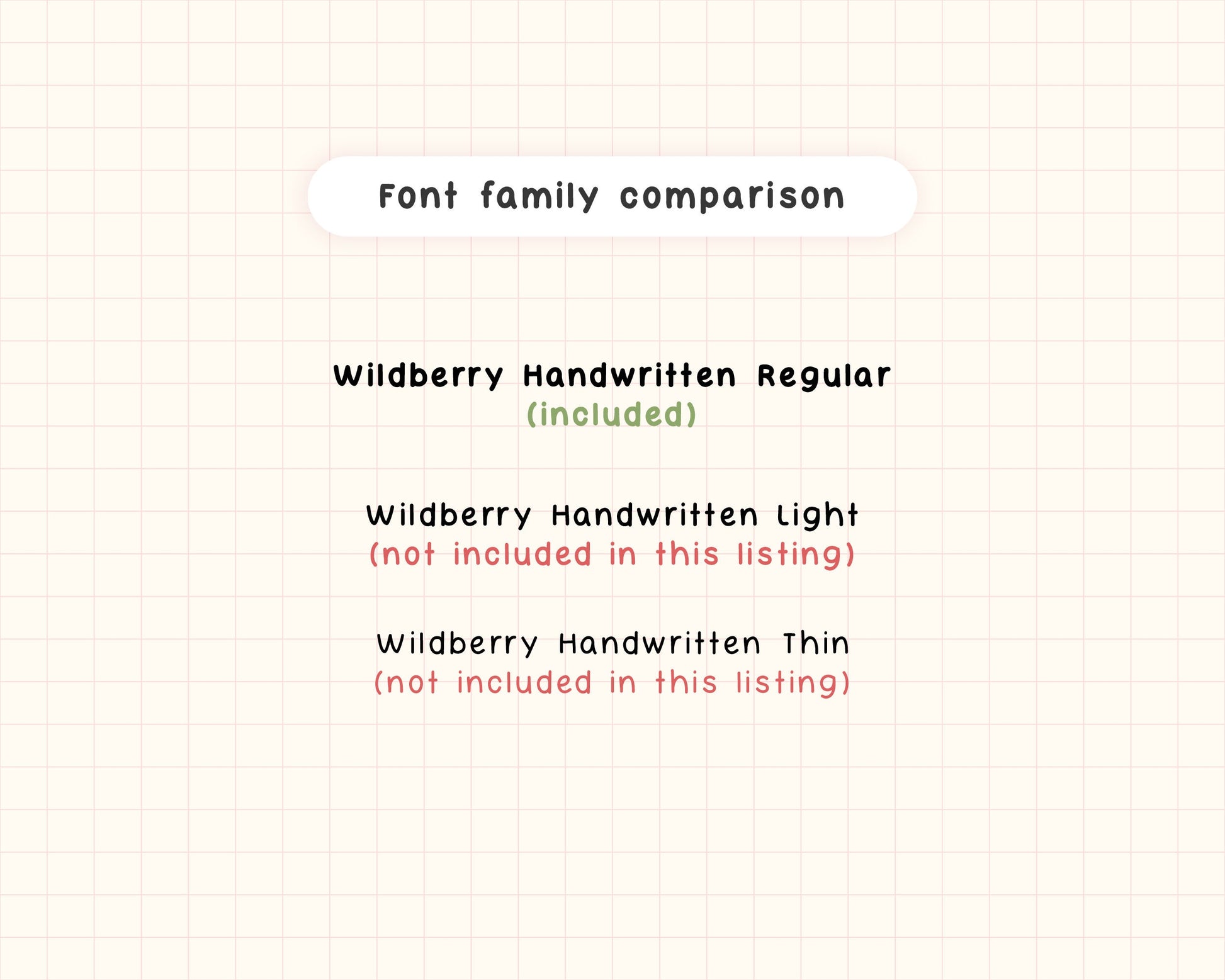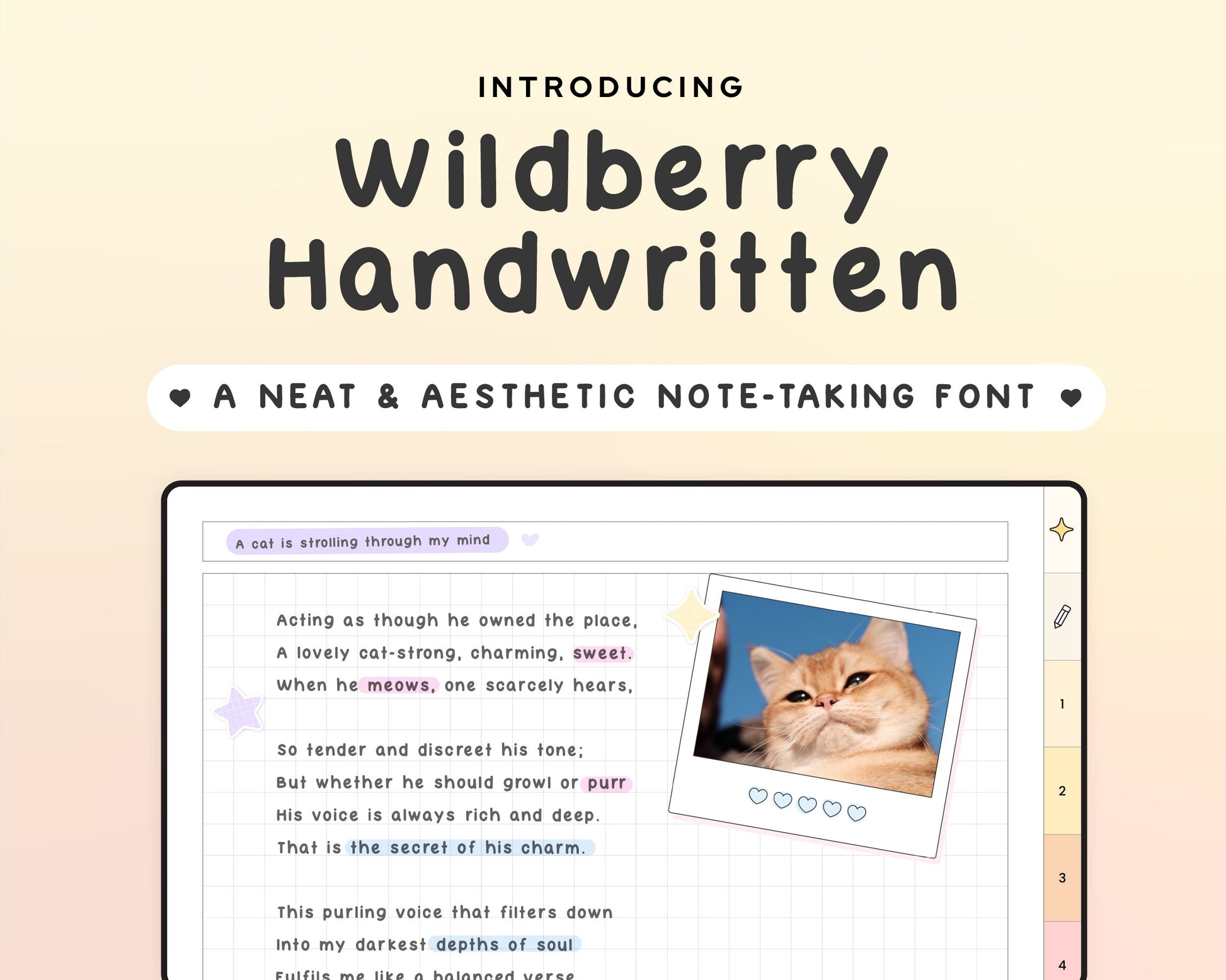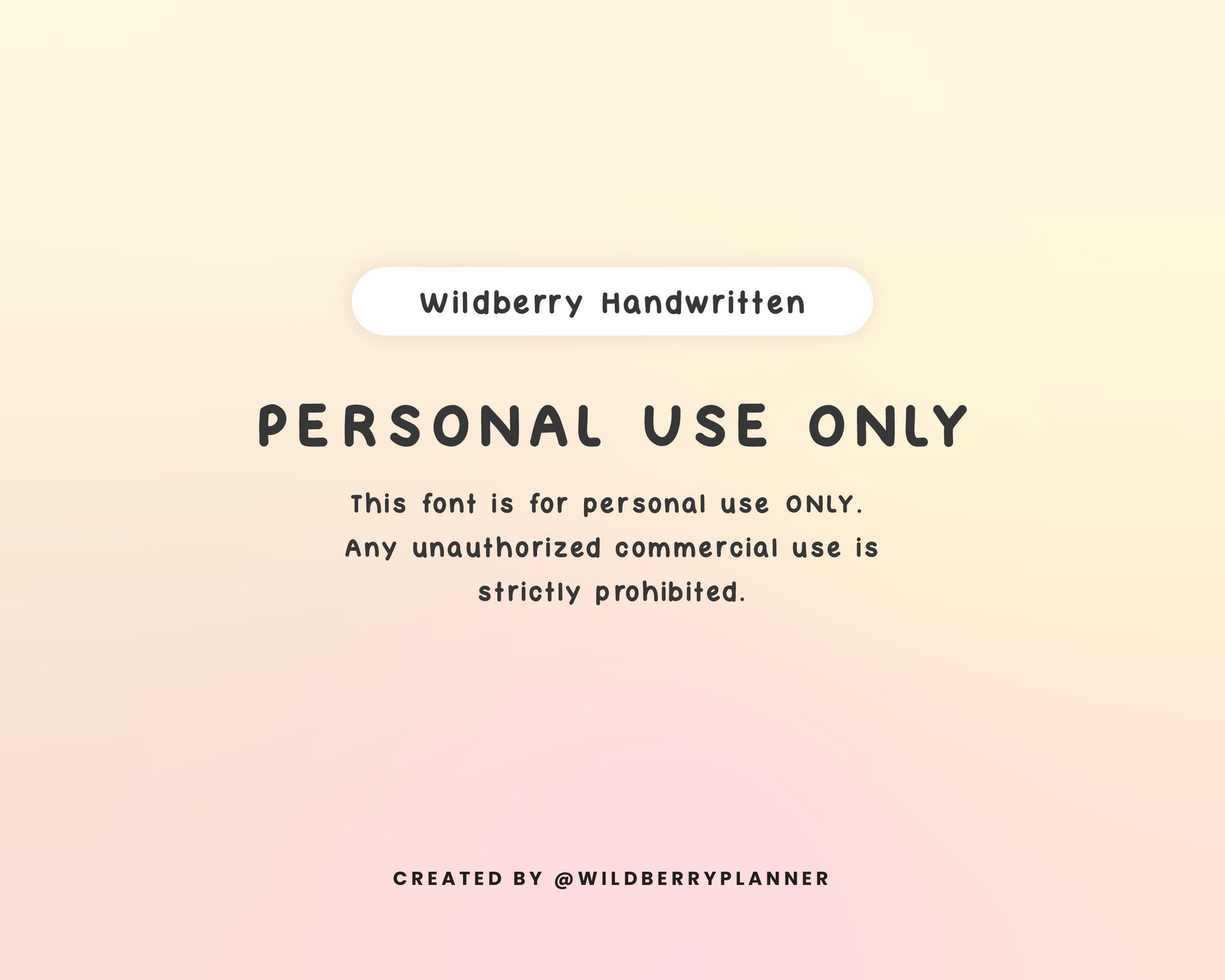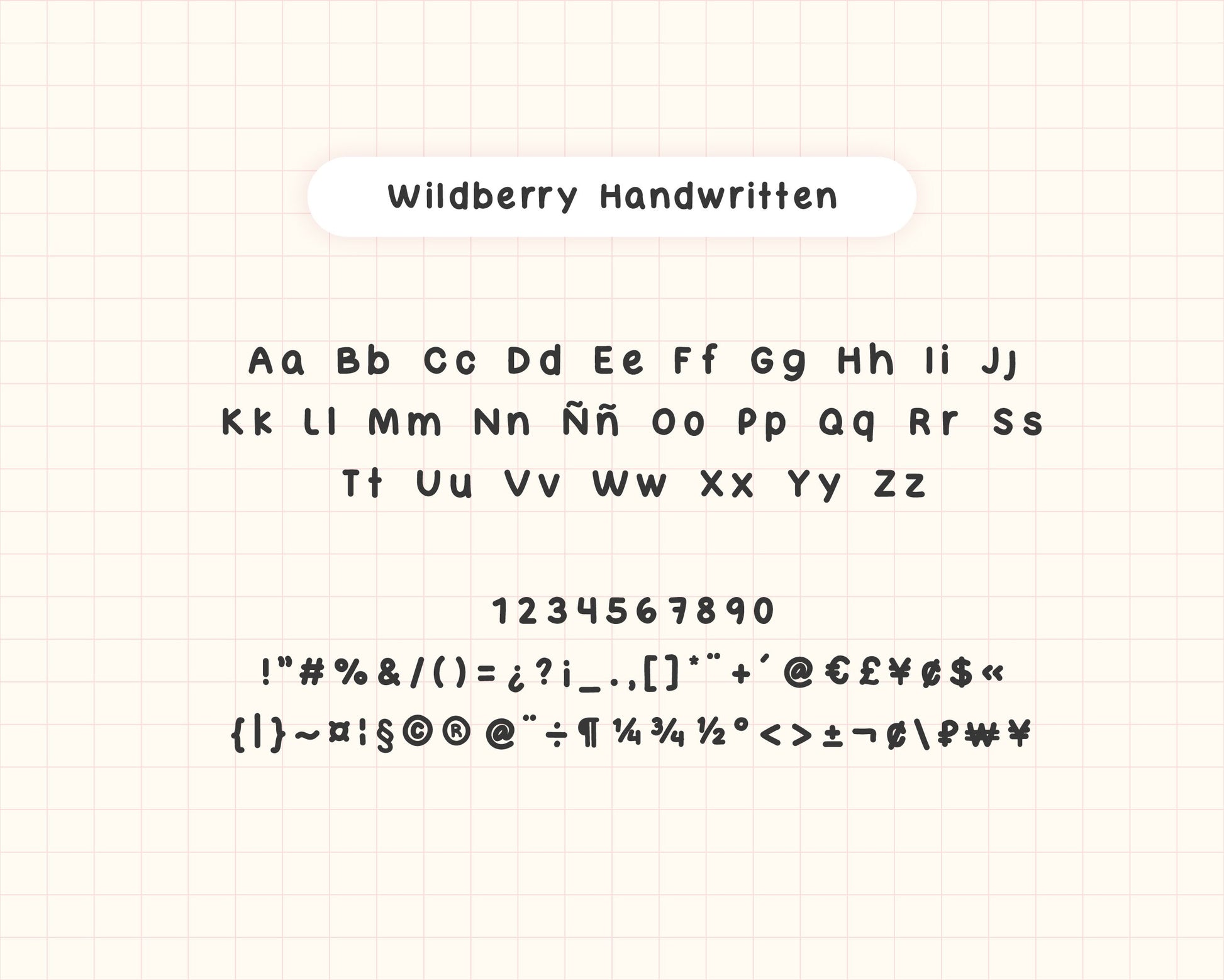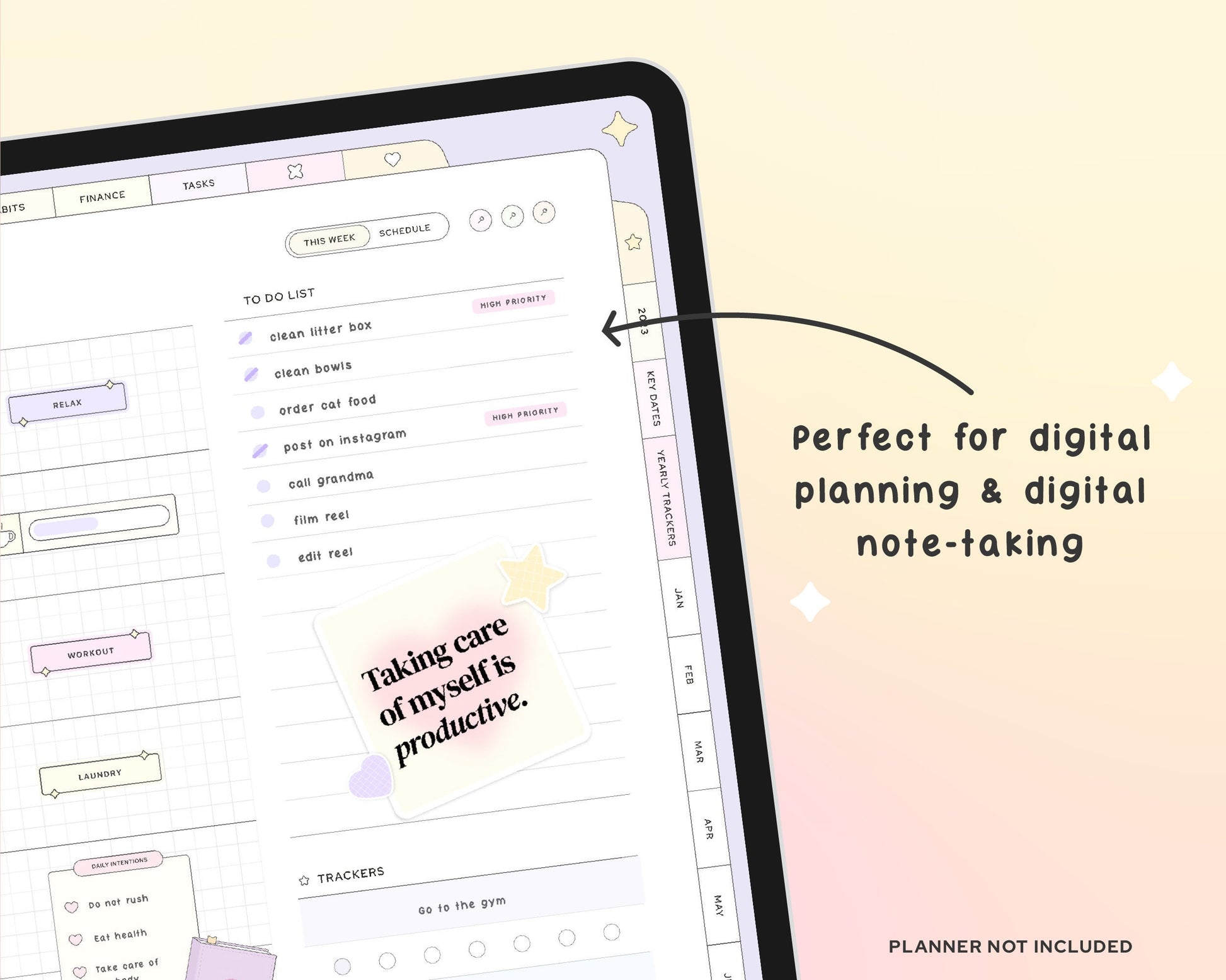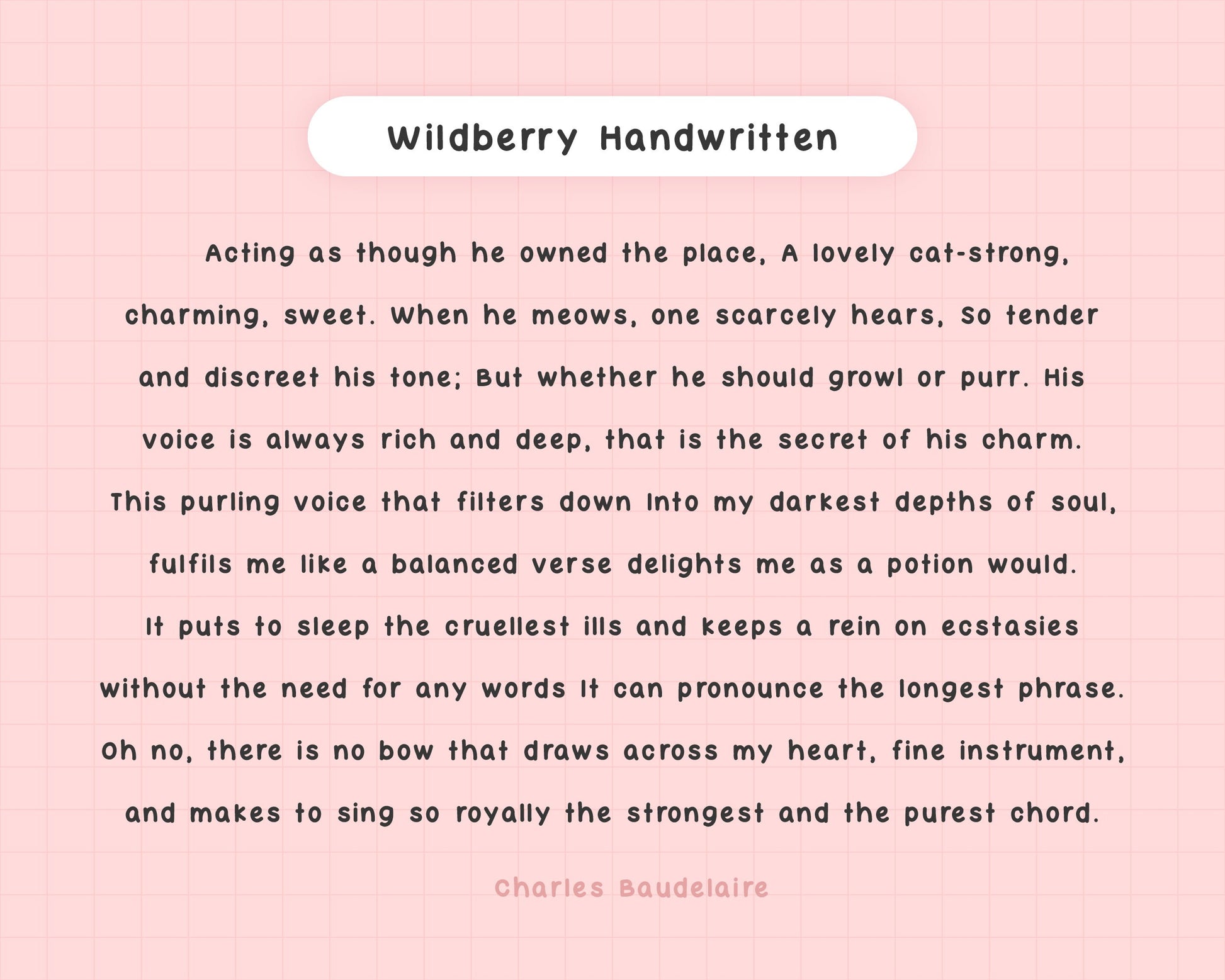
Wildberry Handwritten Font - Regular
Wildberry Handwritten Regular Font
This is a cute handwritten font for digital planning, note-taking, digital study notes, collage notes, and more. This font is suitable for multiple languages. Please make sure to check the special characters image.